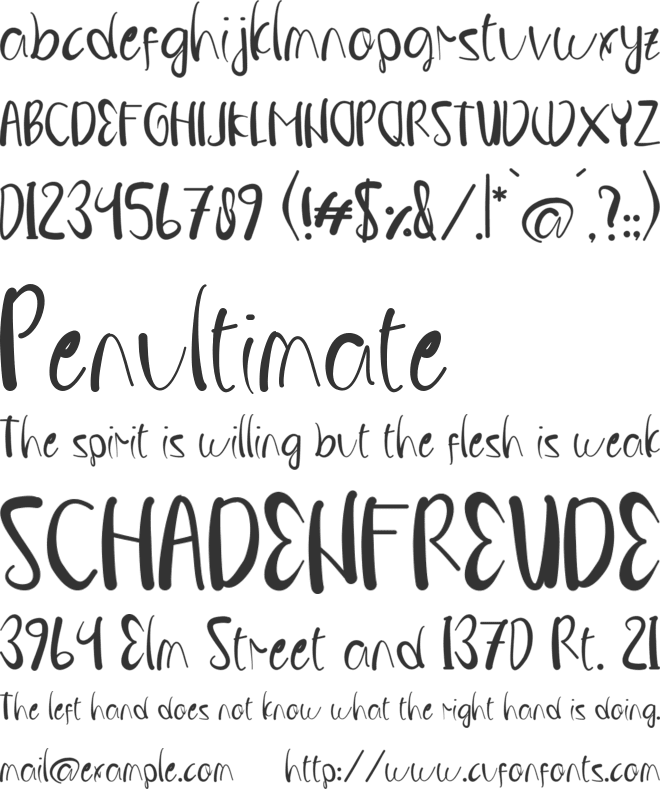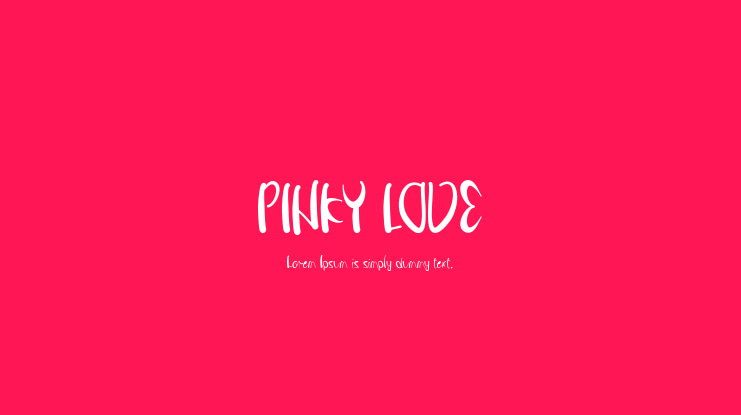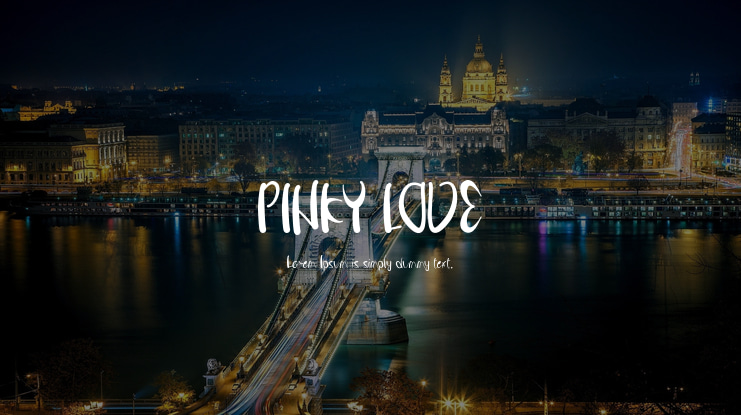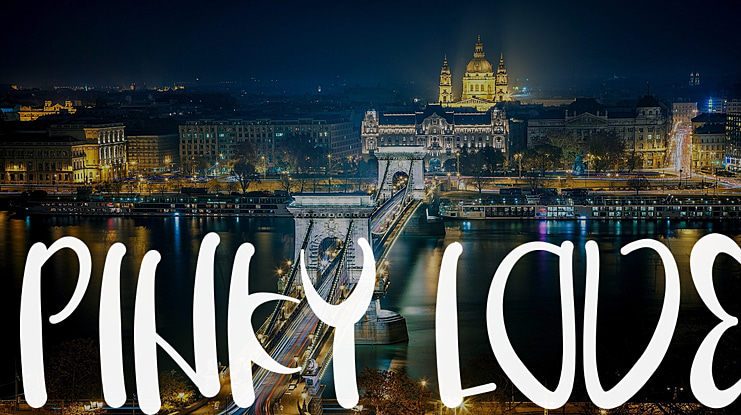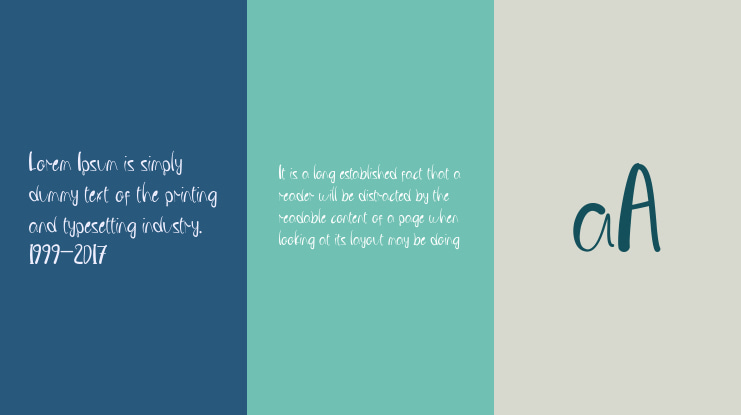
PINKY LOVE Font
Pinky Love is a fun and friendly display font, that can easily stand out. Simple but with a strong visual effect, this font will instantly make your creation more appealing than any others.